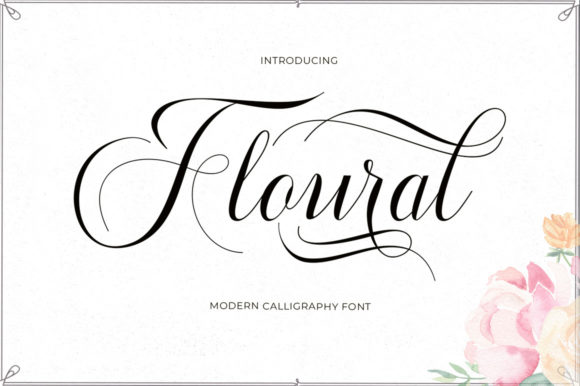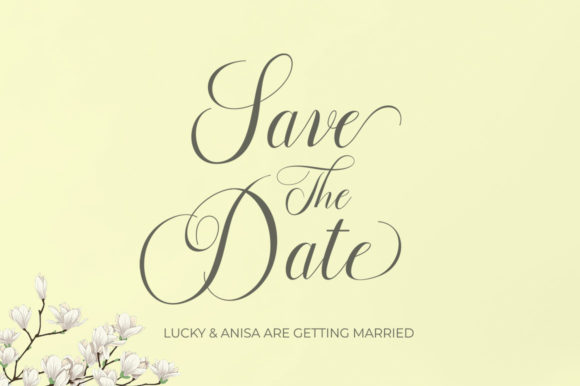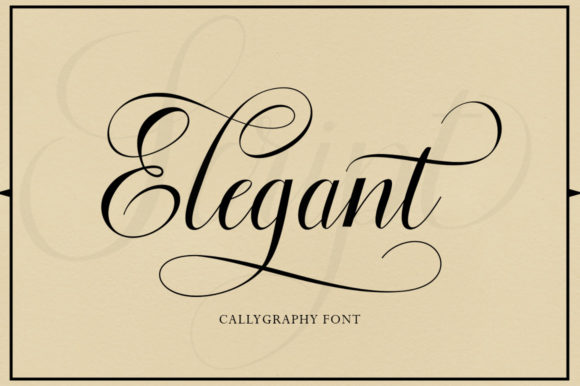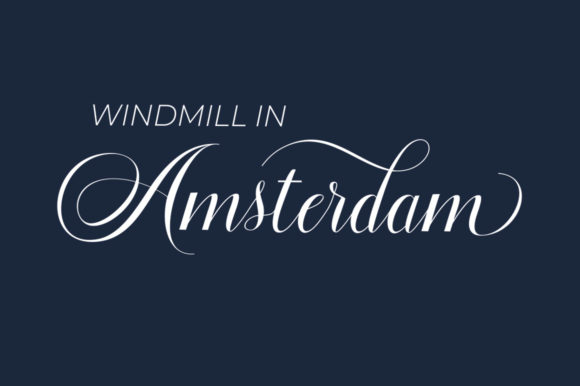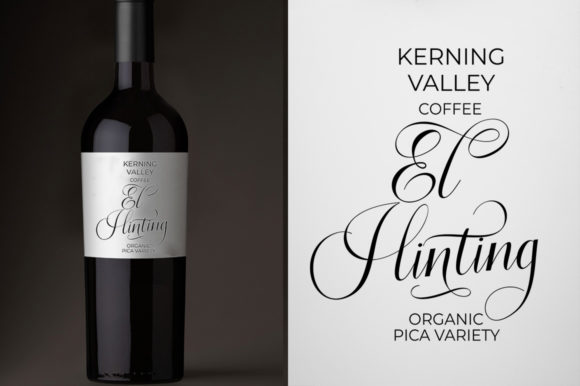
About Floural Script Font
Introducing “The Floural,” a beautiful calligraphy script designed to bring an elegant and classy style, adding a luxurious feel to your designs. This font is more than just a typeface; it’s a design asset crafted with beauty and sophistication, making it perfect for a variety of projects that demand an exquisite and luxurious touch.
“The Floural” stands out with its beautiful calligraphy script, exuding an elegant and classy style that elevates any design. Whether you’re working on wedding invitations, logos, branding, quotes, or any project that requires a touch of luxurious calligraphy, this font delivers with its distinctive and refined character.
Its elegant and classy style ensures that your text carries a sense of opulence and sophistication. Logos designed with this calligraphy script convey a refined and memorable brand identity. Wedding invitations, branding materials, quotes, and other designs crafted with “The Floural” exhibit a luxurious and timeless vibe, making them visually appealing and versatile.
The versatility of “The Floural” makes it a great choice for a variety of creative applications, providing a calligraphy script that adds a touch of luxury to any design context.
In summary, “The Floural” is more than just a font; it’s a design companion that brings a beautiful calligraphy script with an elegant and classy style to your projects. Embrace its luxury for wedding invitations, logos, branding, and more, and let “The Floural” enhance your designs with a touch of refined beauty.